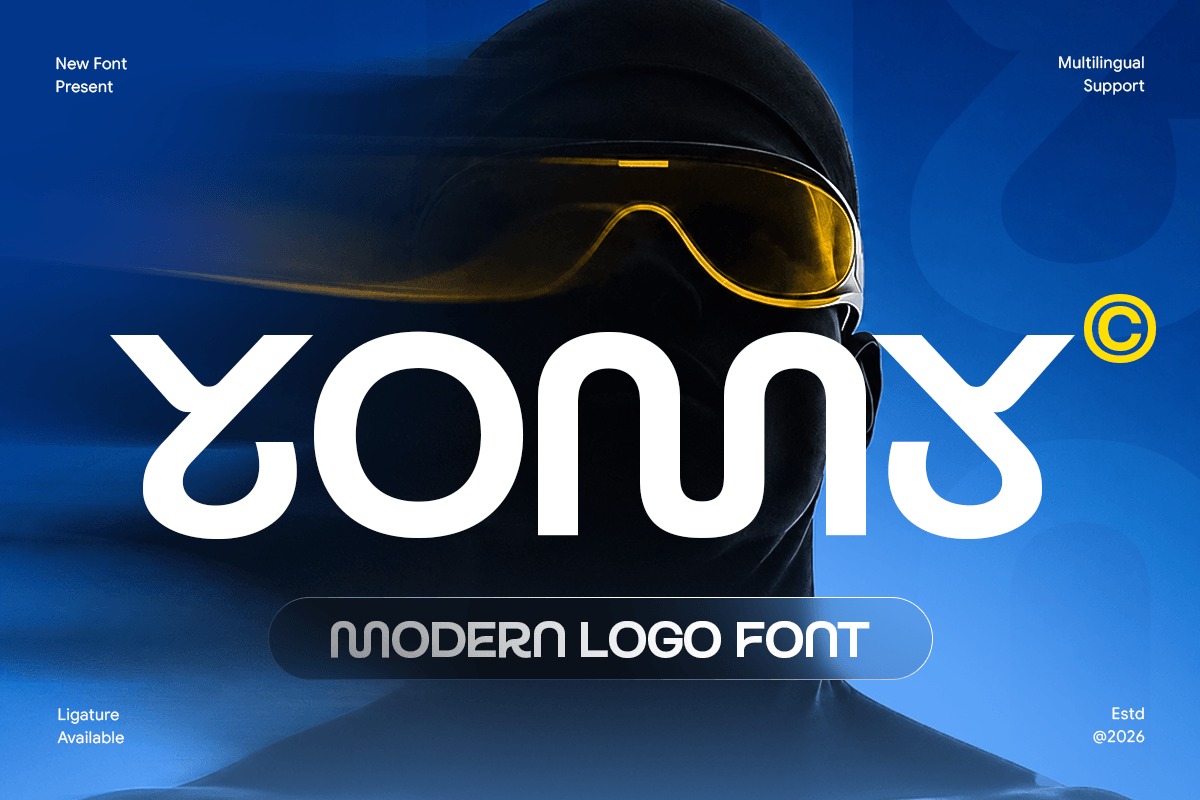
Yomy Font
Yomy Font is a professionally designed typeface that delivers clarity, structure, and consistent performance across various design applications.Yomy – Modern Logo Font Yomy is a modern logo font designed to deliver simplicity, creativity, and a strong contemporary visual identity. Featuring clean letterforms, balanced geometry, and a sleek modern aesthetic, Yomy is perfect for logos, branding, social media visuals, packaging, and creative design projects.
Combining minimalist structure with stylish modern typography, Yomy creates a professional and memorable appearance. Its versatile design ensures excellent readability while maintaining a distinctive and elegant character, making it ideal for startups, fashion brands, agencies, lifestyle products, and modern business visuals.
Yomy – Modern Logo Font Features:
Modern minimalist style with clean visual aesthetics
Balanced geometric letterforms with stylish appearance
Ideal for logos, branding, packaging, and social media
Uppercase, lowercase, numerals, and punctuation included
Clean structure with modern and professional feel
Perfect for startups, agencies, fashion, and lifestyle branding
Build a clean and modern identity with Yomy – the logo font crafted for stylish and contemporary branding.